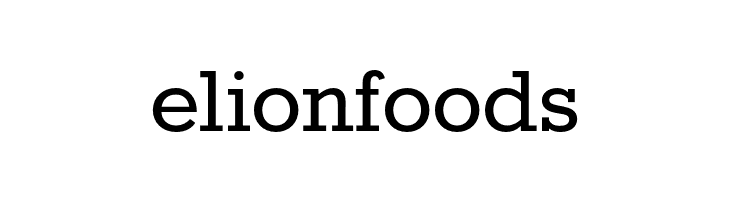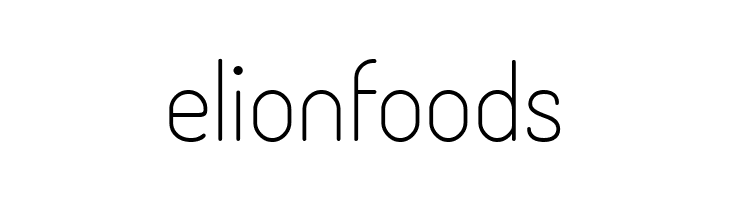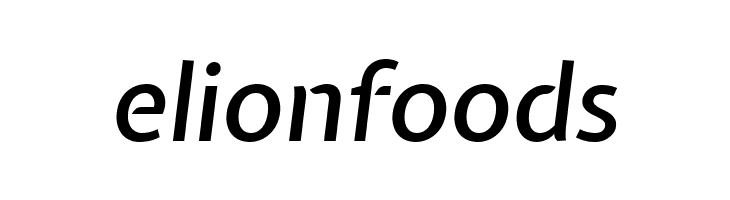
). ) A classic serif typeface with elegant proportions and subtle contrast.
). ) A bold serif font with strong, elegant strokes and pronounced serifs.
). ) An elegant serif italic typeface with graceful curves and refined strokes.
A modern, italic font with clean lines and a professional appearance.
A modern slab serif font with strong, squared serifs and balanced strokes.
A modern, rounded sans-serif font with a light and airy feel.
A modern, italic sans-serif font with clean lines and excellent readability.
A bold, modern sans-serif font with clean lines and excellent readability.
A modern, semi-bold italic sans-serif font with excellent readability.
A modern, medium-weight italic sans-serif font with a sleek and dynamic style.